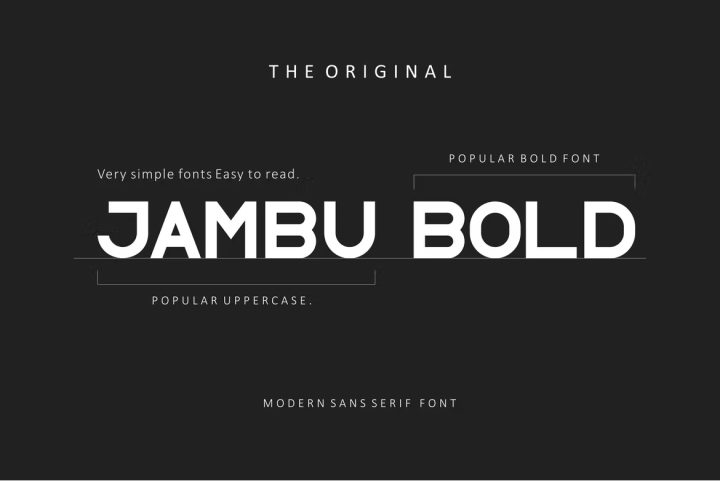
Jambu Bold Font
Introducing our new product Jambu Bold Font – Modern Font
Jambu Bold Font – Modern Font is a bold and authentic display font. The font is suitable for any branding project like logo, t-shirt printing, esport, and many more. outstanding in a wide range of contexts.
Uppercase